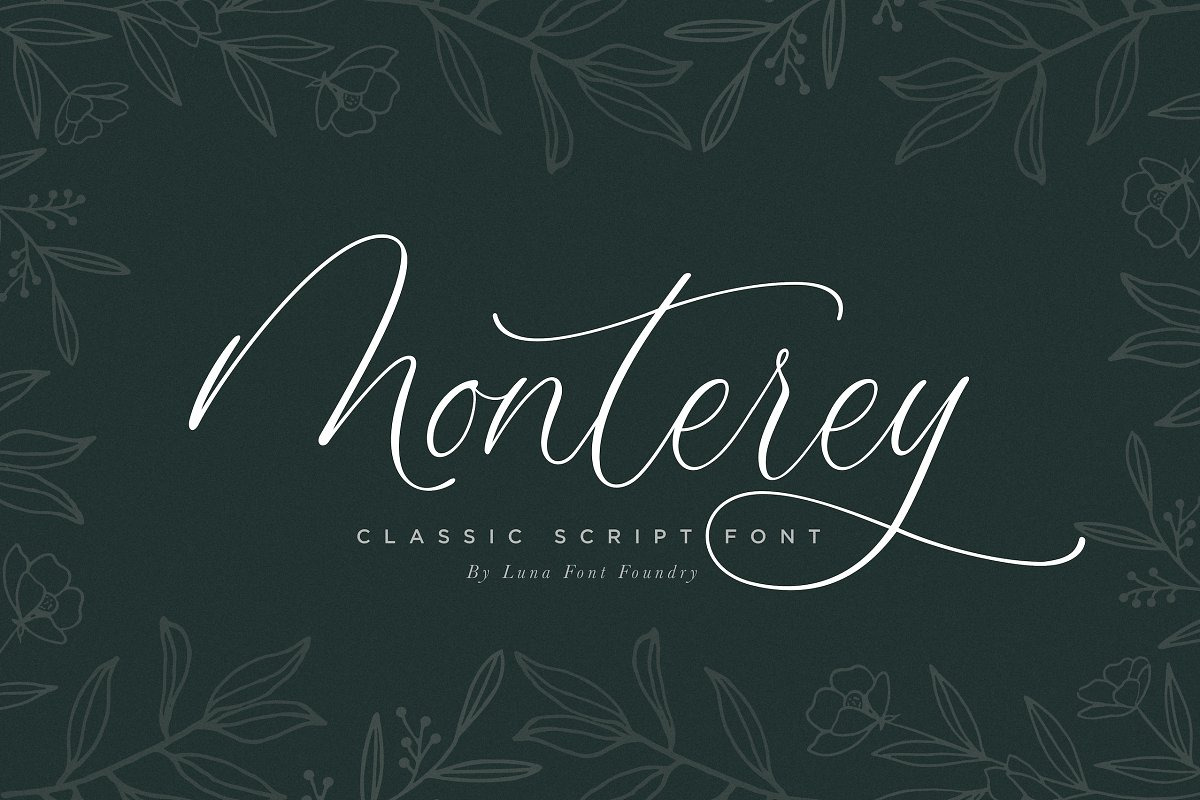
Monterey Script Font
Introducing the elegant new Monterey Script Font!
Monterey Script was built with OpenType features and includes beginning and ending swashes, numbers, punctuation, alternates, ligatures and it also supports other languages :)
- Multilingual capabilities are available for this font. Characters include: ÁĂÂÄÀĀÅÃÆČÇÐĎÉĚÊËÈĒĘÍÎÏÌĪįĽŁŇÑÓÔÖÒŐŌØÕŒÞŘŠŤÚÛÜÙŰŪẂŴẄẀÝŶŸỲŽ áăâäàāåãæčçðďéěêëèēęľłňñóôöòőōøõœþřšßťúûüùűūųẃŵẅẁýŷÿỳž